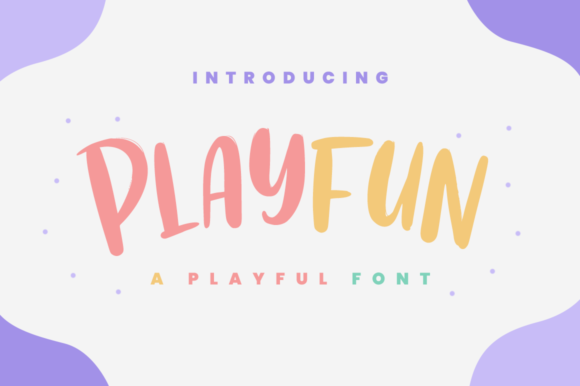
Step into a world of unbridled joy and captivating charm with Playfun Font, a display font that radiates cheerfulness like a summer's day. Immerse yourself in the playful and smart aura it exudes, perfectly suited to add a dash of delight to your creative endeavors.
With Playfun Font, let your imagination run wild as you embark on a journey of visual storytelling. Its cheerful strokes dance across the screen, capturing the essence of lightheartedness and wonder. Whether you're crafting cartoon-inspired designs, developing engaging children's games, or seeking a font that breathes life into quotes and titles, Playfun Font is your perfect companion.
Unleash your creativity and witness the transformative power of Playfun Font as it adorns your brand names, book covers, posters, and every creation that yearns for a touch of infectious joy. Its playful nature knows no bounds, inviting you to explore a realm of endless possibilities.
Indulge in the artistry of Playfun Font, meticulously crafted by FatmaStudio with an unwavering commitment to excellence. Each letterform is a testament to their passion, imbued with a sense of whimsy that promises to elevate your designs to new heights.
Embrace the magic of Playfun Font and embark on a journey of creative expression like never before. Its infectious charm will ignite your imagination and leave your audience spellbound. Download Playfun Font today and unlock a world of boundless creativity, where every design tells a story of joy and wonder.